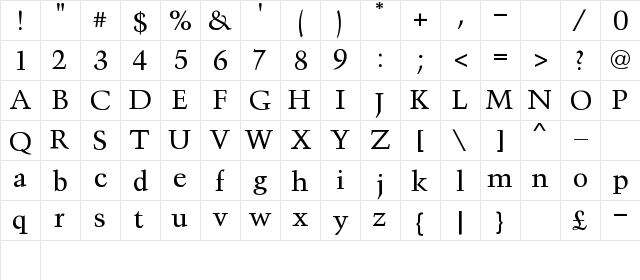
Victima Regular Font Preview
Victima Regular
Design Context for Victima Typeface
Victima is a composed and adaptable typeface that performs quietly and consistently across a wide range of design contexts.